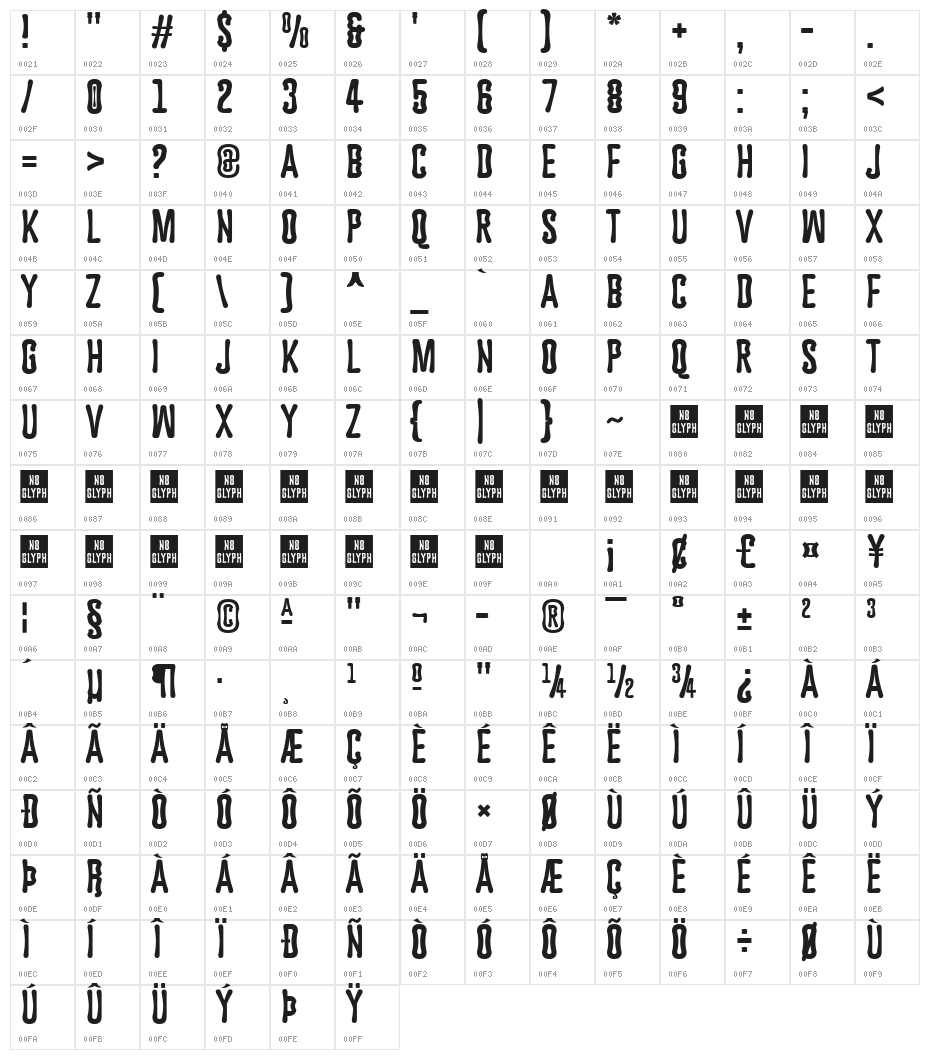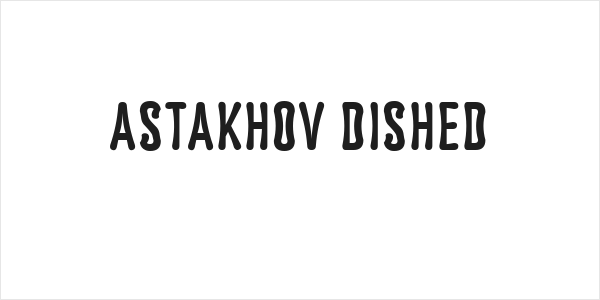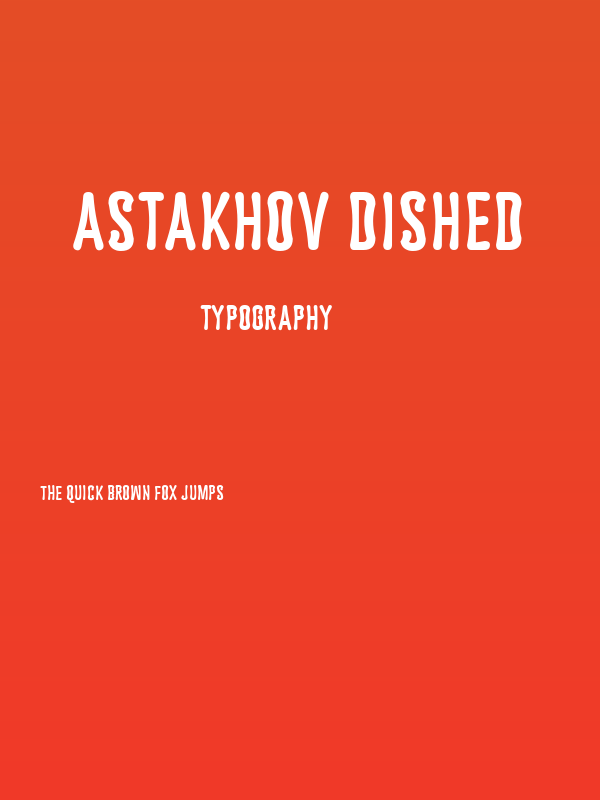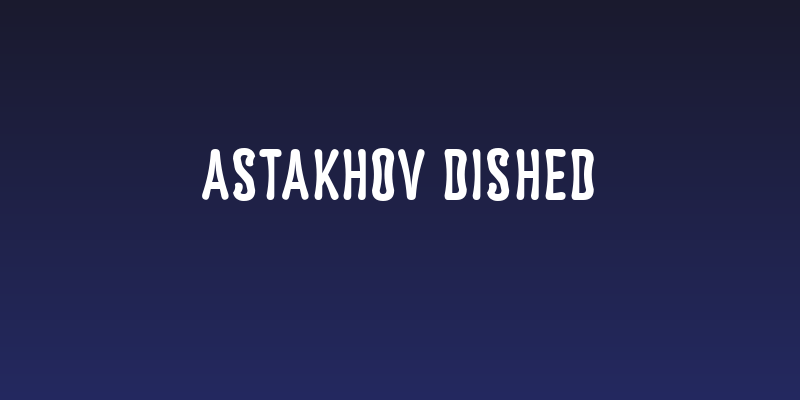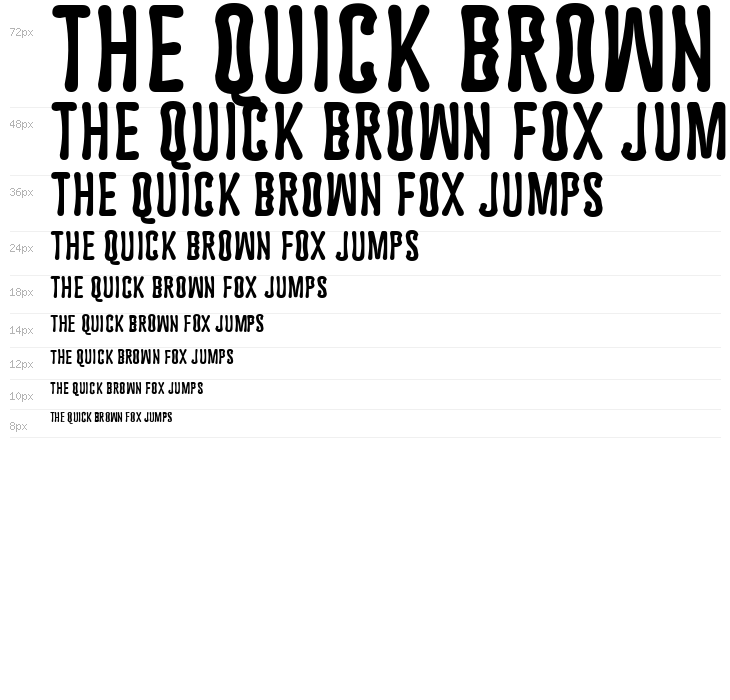
Astakhov Dished Font
Astakhov Dished Description
This font features a bold and playful design with a distinctive, slightly irregular shape that gives it a hand-drawn feel. The characters are thick and rounded, with a unique style that combines elements of both modern and retro aesthetics. The uppercase and lowercase letters maintain a consistent weight, providing a cohesive look across the alphabet. Numbers and special characters are designed with the same playful and bold characteristics, making them stand out. The font's overall appearance is eye-catching and suitable for creative projects that require a touch of whimsy and boldness.
| Overall Style | Playful, Retro, Modern |
| Proposed Projects | Ideal for posters, children's books, branding, and any creative project needing a fun and bold typeface. |